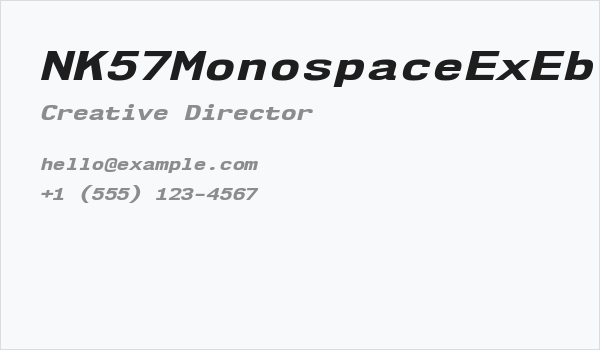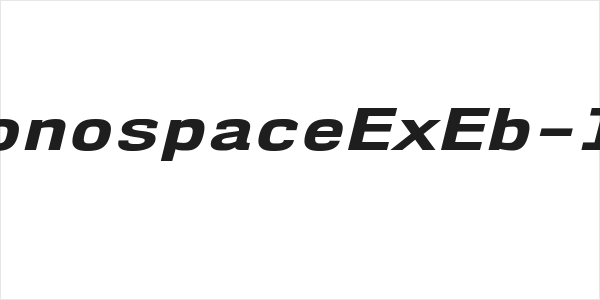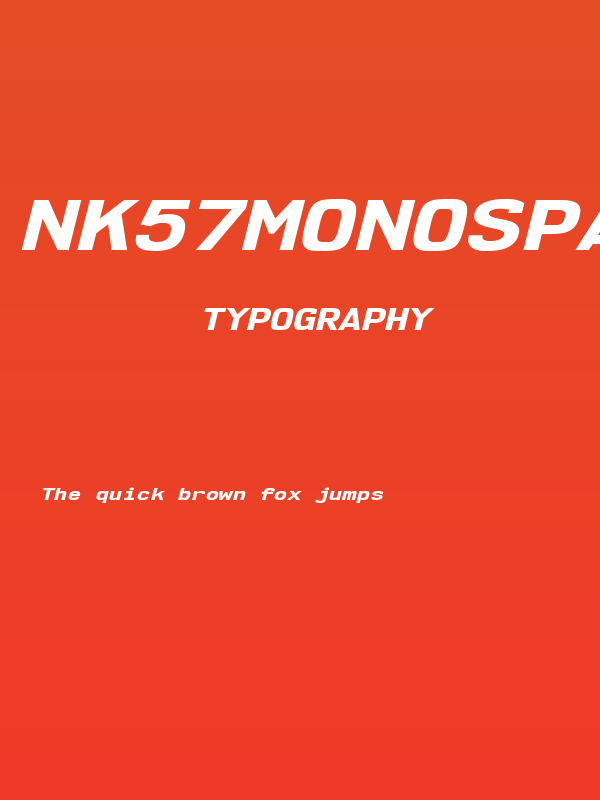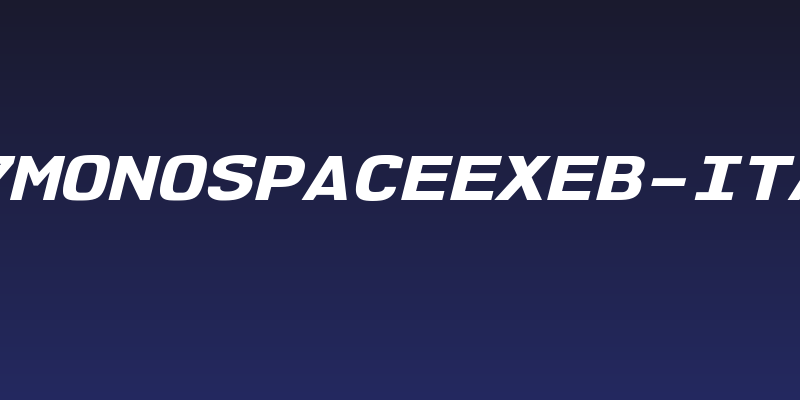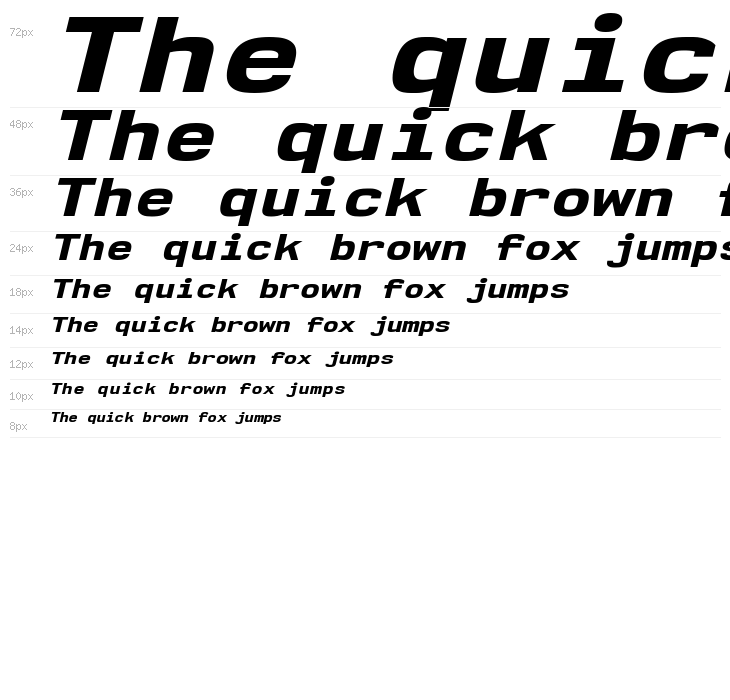
NK57MonospaceExEb-Italic Font
NK57MonospaceExEb-Italic Description
This font exhibits a strong, structured appearance with a monospaced design, ensuring each character occupies the same horizontal space. It features a distinct italic slant, adding a dynamic and forward-leaning aspect to the text. The characters are bold and robust, with consistent stroke thickness, providing a uniform and balanced look. The font includes a full set of uppercase and lowercase letters, numerals, and a variety of special characters, making it versatile for various applications. Its clean lines and geometric shapes contribute to a modern and technical aesthetic, suitable for coding, technical documentation, or any project requiring a precise and orderly presentation.
| Use Case | Coding, Technical documentation, Design projects |
| Proposed Projects | Ideal for coding environments, technical documentation, and design projects requiring a structured, modern look. |